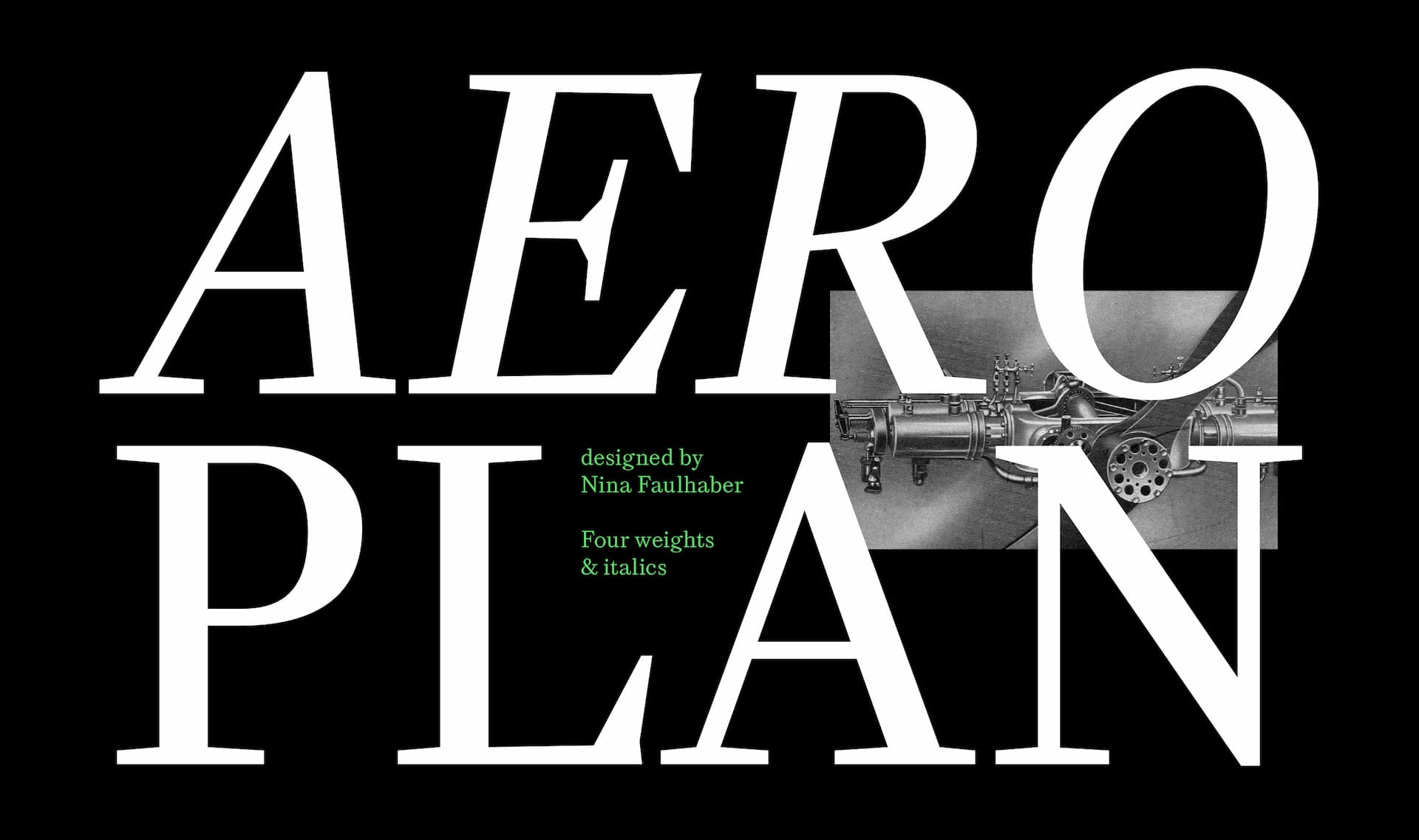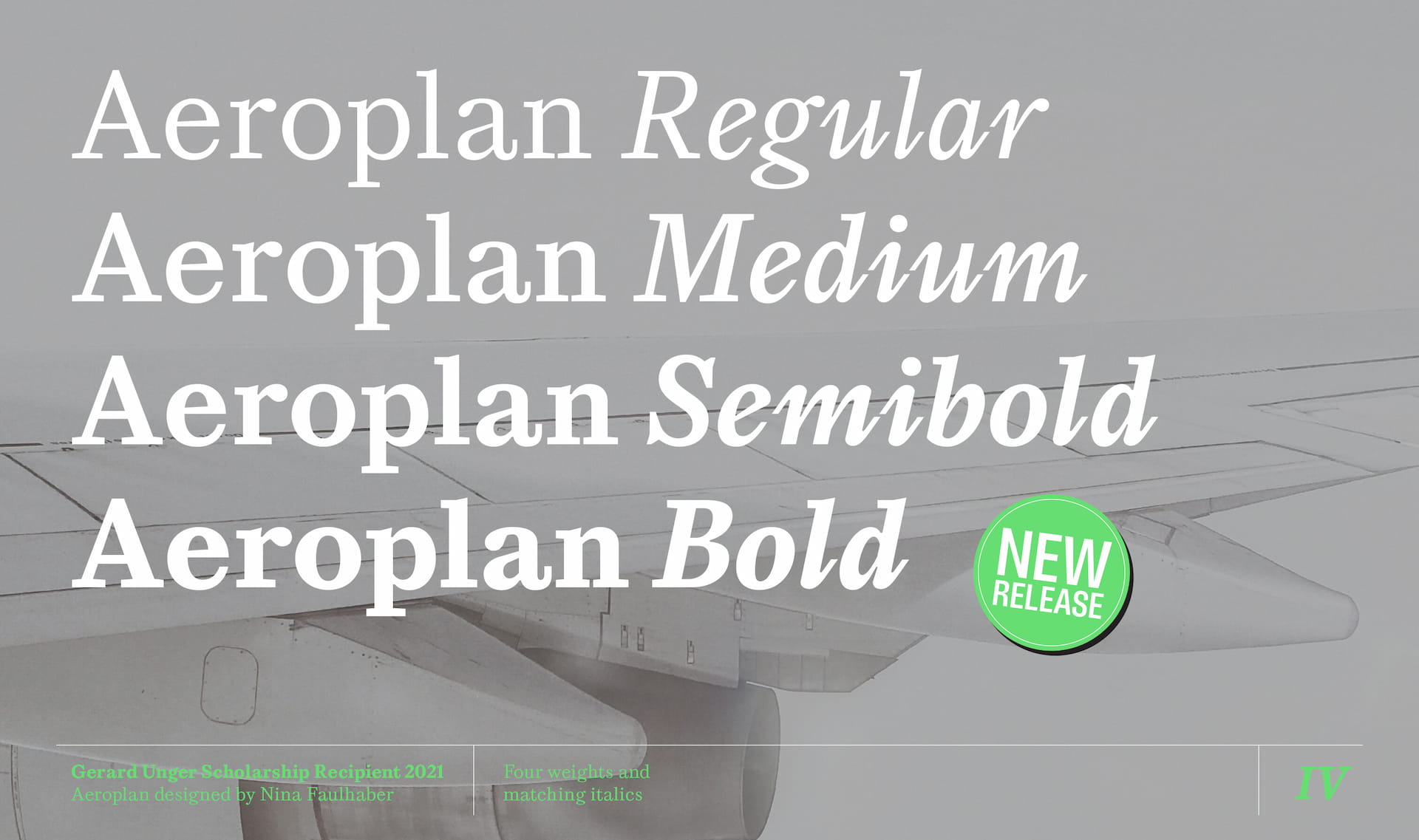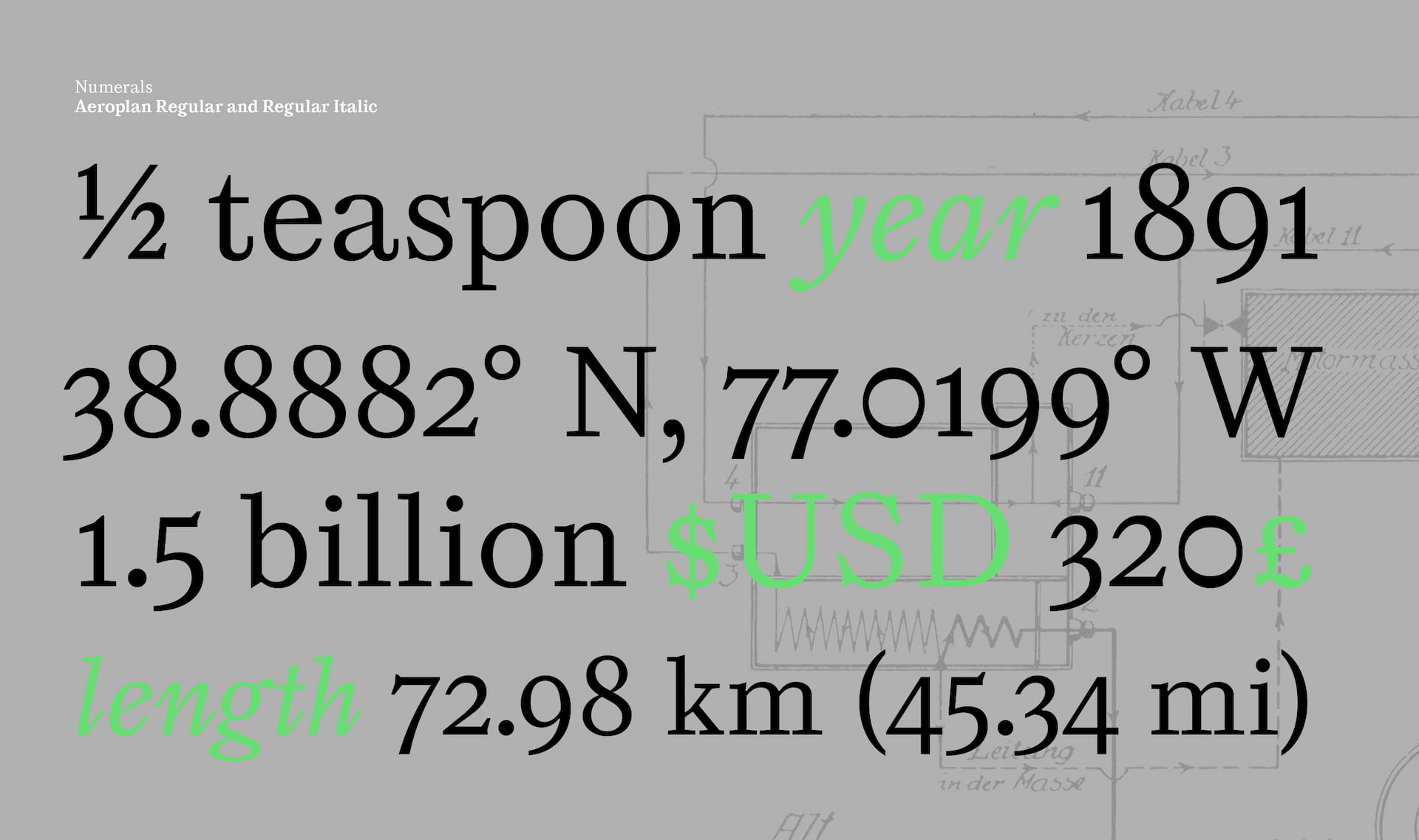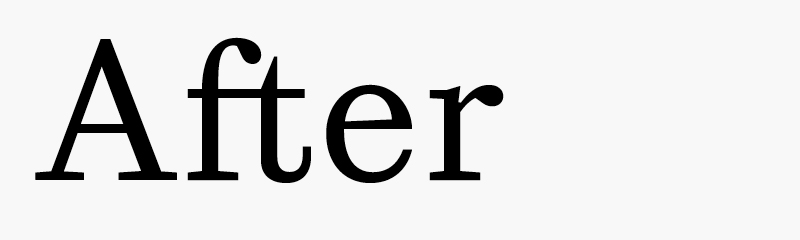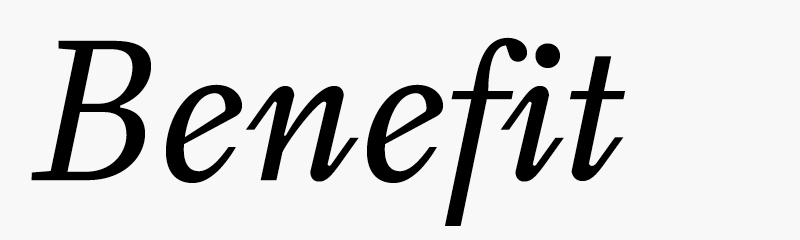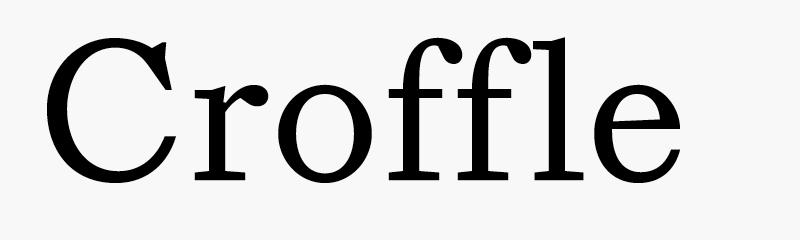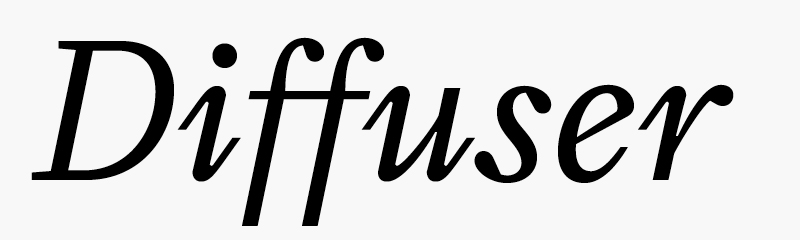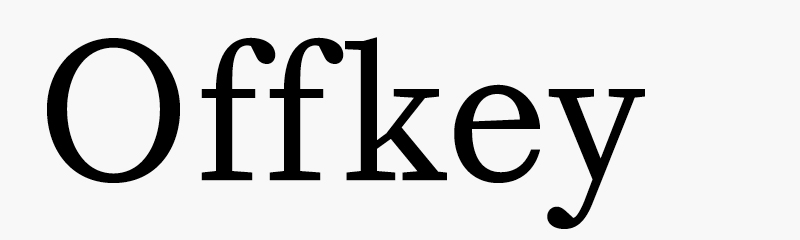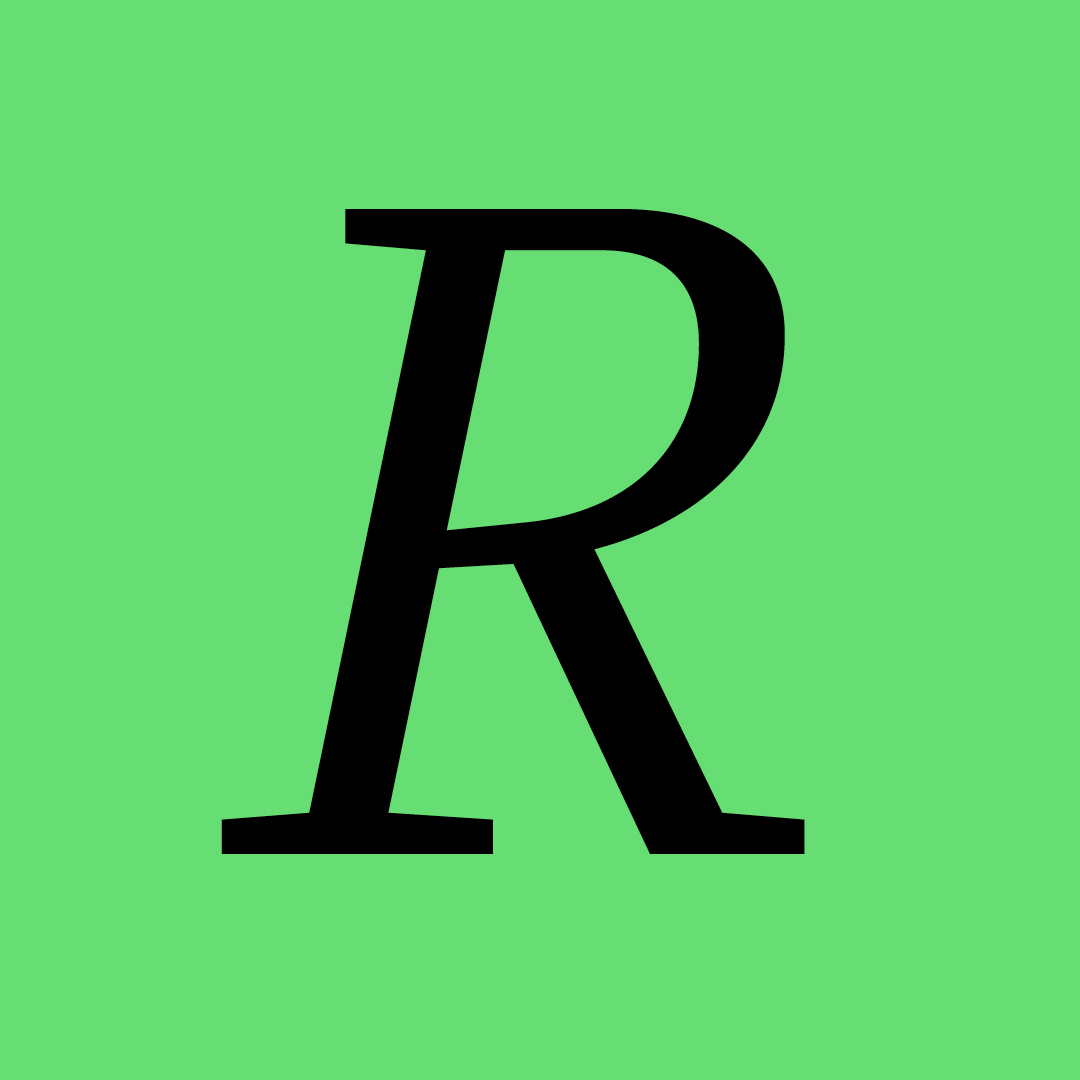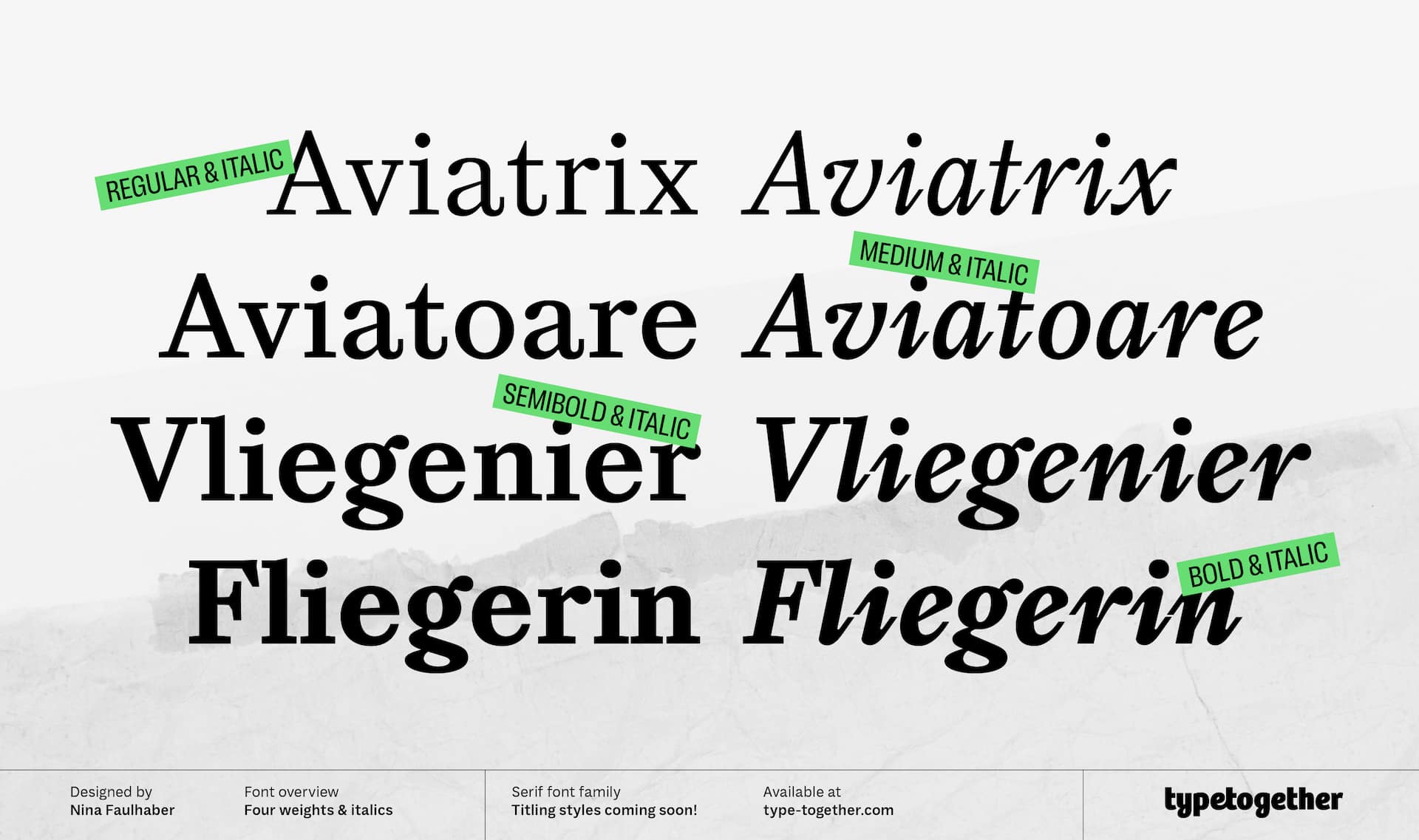
New release: Aeroplan
We are excited to announce that Nina Faulhaber’s Aeroplan font family is now taking flight! Make sure you visit Aeroplan’s webpage, read about its design, and put it through the paces on our website type tester.
As TypeTogether’s Gerard Unger Scholarship winner in 2021, Nina Faulhaber’s Aeroplan typeface proves that vision and skill go hand in hand with testing and patience. What began as wonky text inspiration from a book over 100 years old has been modernised with sturdy shapes, sharp turns, and digital precision worthy of book covers, long narratives, and edgy content.
Into our current world filled with screens and bland sans serifs, Aeroplan brings the best lessons from metal type and a healthy does of personality. Add to this the sheer presence and singular voice of its italic, the extra arrows and geometric shapes, and the contextual alternates, and Aeroplan becomes the best friend of your text.
It’s time to write your own story with a typeface that is the serif equivalent of optical poetry. Meet Aeroplan.
This image and the following images show how two characters are joined with a ligature for better fit and clarity.
The f–i ligature.
The f–f–l ligature.
The f–f ligature.
The f–f–k ligature.
Arrows and geometric shapes in SS01 and SS03.